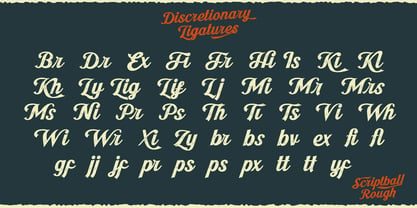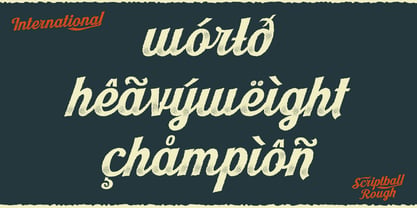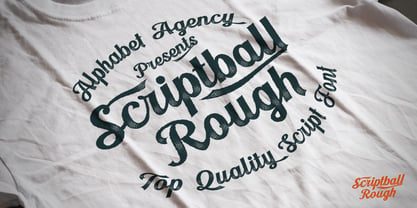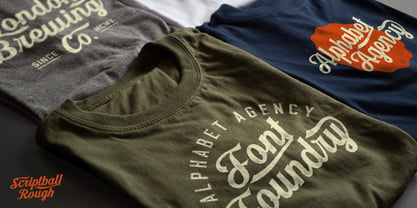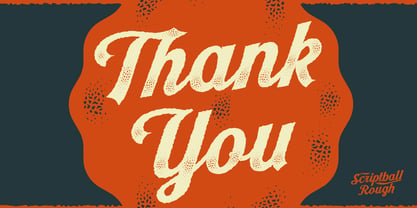
Scriptball Rough
La familia tipográfica Scriptball Rough fue diseñada por Swinn Jonathan y publicada por Alphabet Agency. Scriptball Rough contiene 1 estilos. Más información sobre esta familia
Scriptball Rough is an amazing distressed script font containing over 400 characters. The combined letters of this cursive script font have a beautiful flow. The font includes uppercase, lowercase, numbers, punctuation and many alternative characters. The distressed look mimics a stipple effect and combined with the rough edges gives a worn look to the characters. This effect makes the font a perfect choice for capturing a classic script font look. The font includes many alternative character to cover all possible scenarios, such as; the start of words, end of words, adding fancy swash elements to your typography. The font also includes many discretionary ligatures that provide wonderful alternative options that perfectly display certain letter combinations. The font and images were created by Jonathan Swinn.